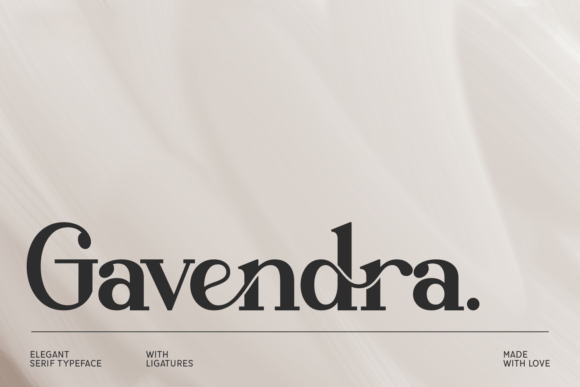
Gavendra Font: A Timeless Serif Typeface for Modern Luxury Brands
In the world of typography, a well-designed font can elevate a brand’s identity and make it stand out in a crowded market. Introducing Gavendra, a sophisticated serif typeface that balances timeless charm with modern creativity. This elegant font is perfect for luxury brands looking to add a touch of refinement and personality to their branding, editorial layouts, packaging, and logos.
The Characteristics of Gavendra Font
Gavendra is a serif typeface that exudes elegance and sophistication. Its smooth curves and distinctive serifs create a harmonious rhythm that feels both classy and contemporary. The font features elegant ligatures and flowing letterforms, which add to its refined personality. Whether used for headings, body text, or captions, Gavendra brings a level of sophistication and luxury to any design project.
Timeless Charm with Modern Creativity
What sets Gavendra apart from other serif typefaces is its ability to balance timeless charm with modern creativity. The font’s classic design elements, such as its serifs and ligatures, are reminiscent of traditional printing. However, its clean lines, balanced proportions, and modern aesthetic make it perfect for contemporary design projects. Whether you’re looking to create a luxurious brand identity, a high-end editorial layout, or a premium packaging design, Gavendra is the perfect choice.
Elegant Ligatures and Flowing Letterforms
One of the standout features of Gavendra is its elegant ligatures and flowing letterforms. These typographic elements add a level of sophistication and refinement to the font, making it perfect for luxury brands. The ligatures and letterforms work together to create a harmonious flow of text that is both beautiful and easy to read. Whether used for headings, body text, or captions, Gavendra’s elegant ligatures and flowing letterforms bring a level of elegance and refinement to any design project.
Perfect for Luxury Brands
Gavendra is the perfect font for luxury brands looking to create a sophisticated and refined brand identity. The font’s elegant design, smooth curves, and distinctive serifs make it perfect for high-end branding, editorial layouts, packaging, and logos. Whether you’re looking to create a luxurious brand identity, a premium product packaging design, or a high-end editorial layout, Gavendra is the perfect choice.
Branding Applications
Gavendra is a versatile font that can be used in a variety of branding applications. Its elegant design and refined personality make it perfect for luxury brands looking to create a sophisticated brand identity. Here are some examples of how Gavendra can be used in branding:
- Logos: Gavendra’s elegant design and refined personality make it perfect for luxury logos.
- Headings: Gavendra’s smooth curves and distinctive serifs make it perfect for headings and titles.
- Body Text: Gavendra’s clean lines and balanced proportions make it perfect for body text.
- Packaging: Gavendra’s elegant design and refined personality make it perfect for premium product packaging.
Editorial Layouts
Gavendra is also perfect for editorial layouts, such as magazines, newspapers, and books. Its elegant design and refined personality make it perfect for high-end editorial projects. Here are some examples of how Gavendra can be used in editorial layouts:
- Headings: Gavendra’s smooth curves and distinctive serifs make it perfect for headings and titles.
- Body Text: Gavendra’s clean lines and balanced proportions make it perfect for body text.
- Captions: Gavendra’s elegant design and refined personality make it perfect for captions and subtitles.
Packaging Design
Gavendra is also perfect for packaging design, particularly for premium products. Its elegant design and refined personality make it perfect for high-end packaging designs. Here are some examples of how Gavendra can be used in packaging design:
- Labels: Gavendra’s elegant design and refined personality make it perfect for labels and packaging tags.
- Packaging Text: Gavendra’s clean lines and balanced proportions make it perfect for packaging text.
- Branding: Gavendra’s elegant design and refined personality make it perfect for branding and logo design.
In conclusion, Gavendra is a sophisticated serif typeface that balances timeless charm with modern creativity. Its elegant design, smooth curves, and distinctive serifs make it perfect for luxury brands looking to create a refined and sophisticated brand identity. Whether used for branding, editorial layouts, packaging, or logos, Gavendra brings a level of elegance and refinement that is unmatched by other fonts. If you’re looking for a font that exudes luxury and sophistication, look no further than Gavendra.